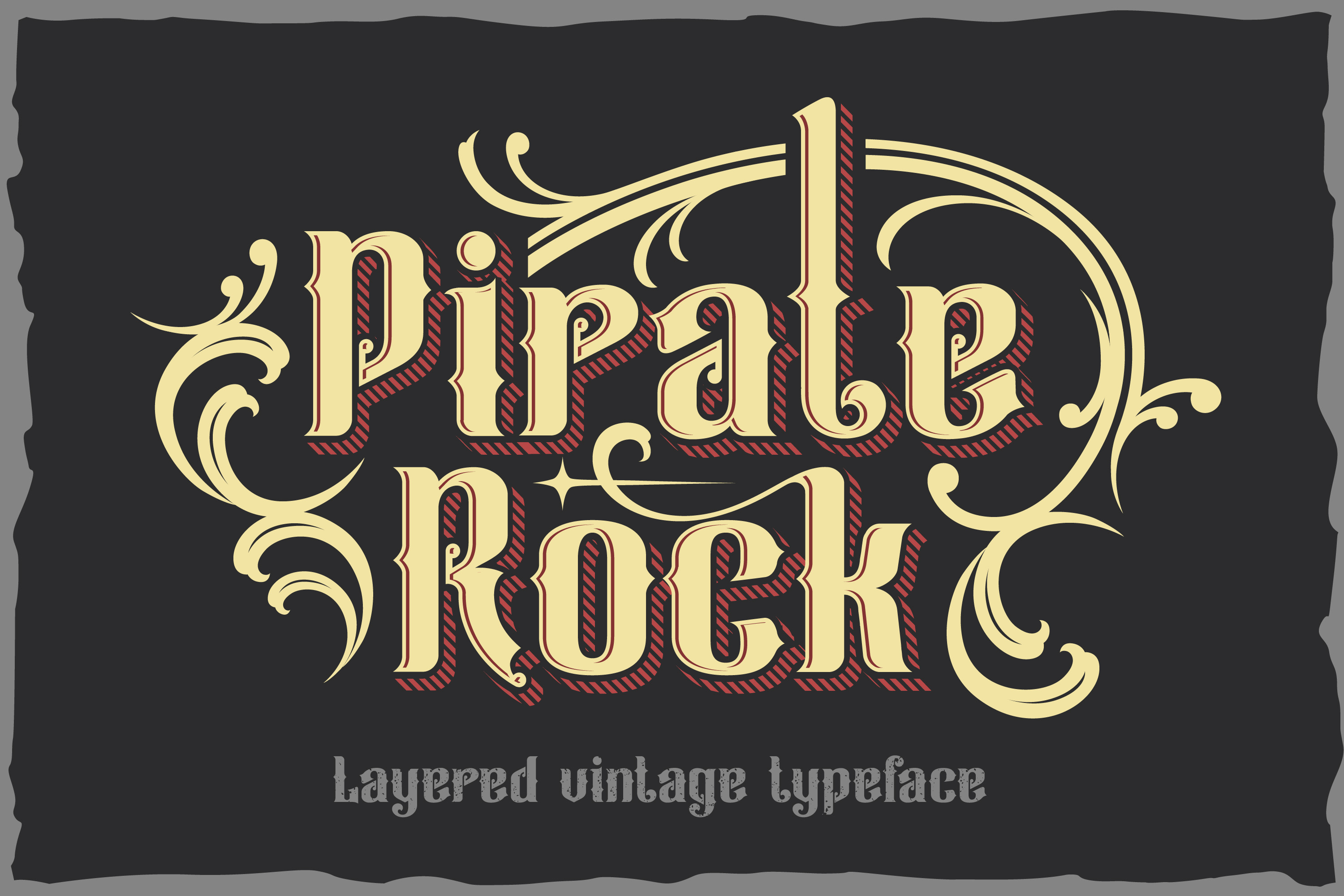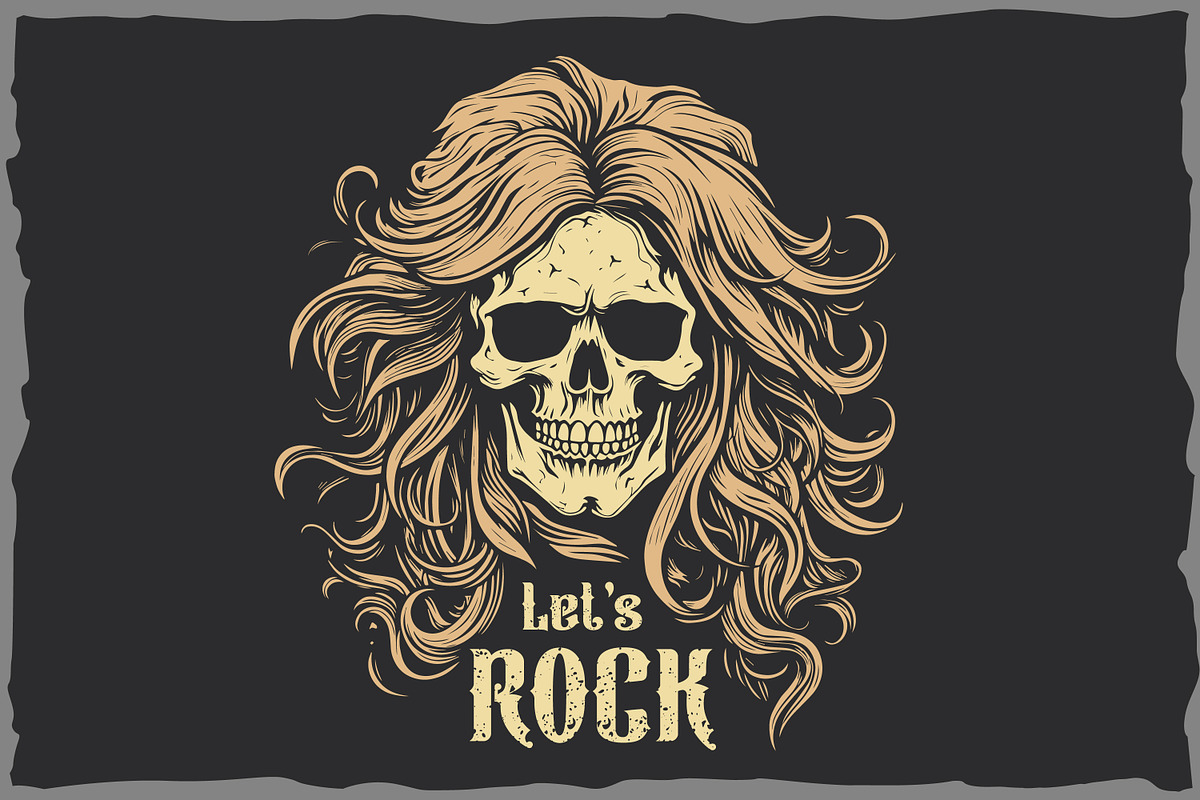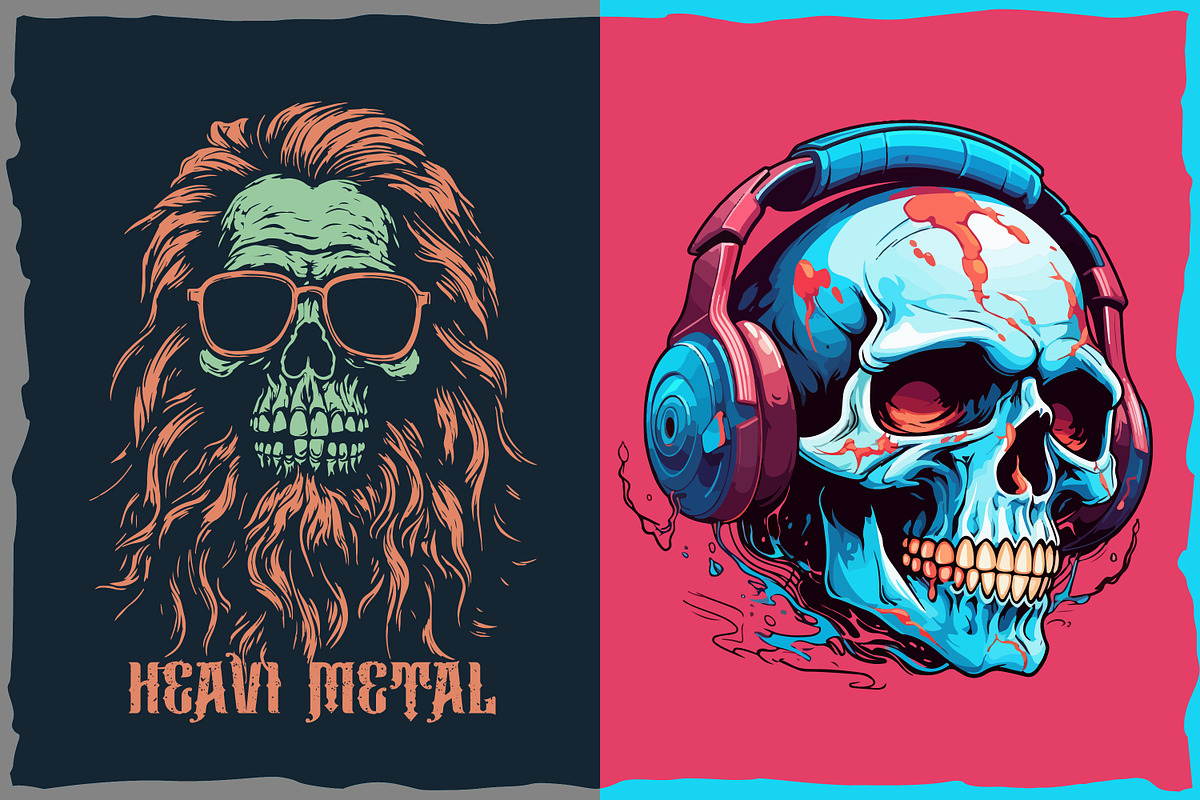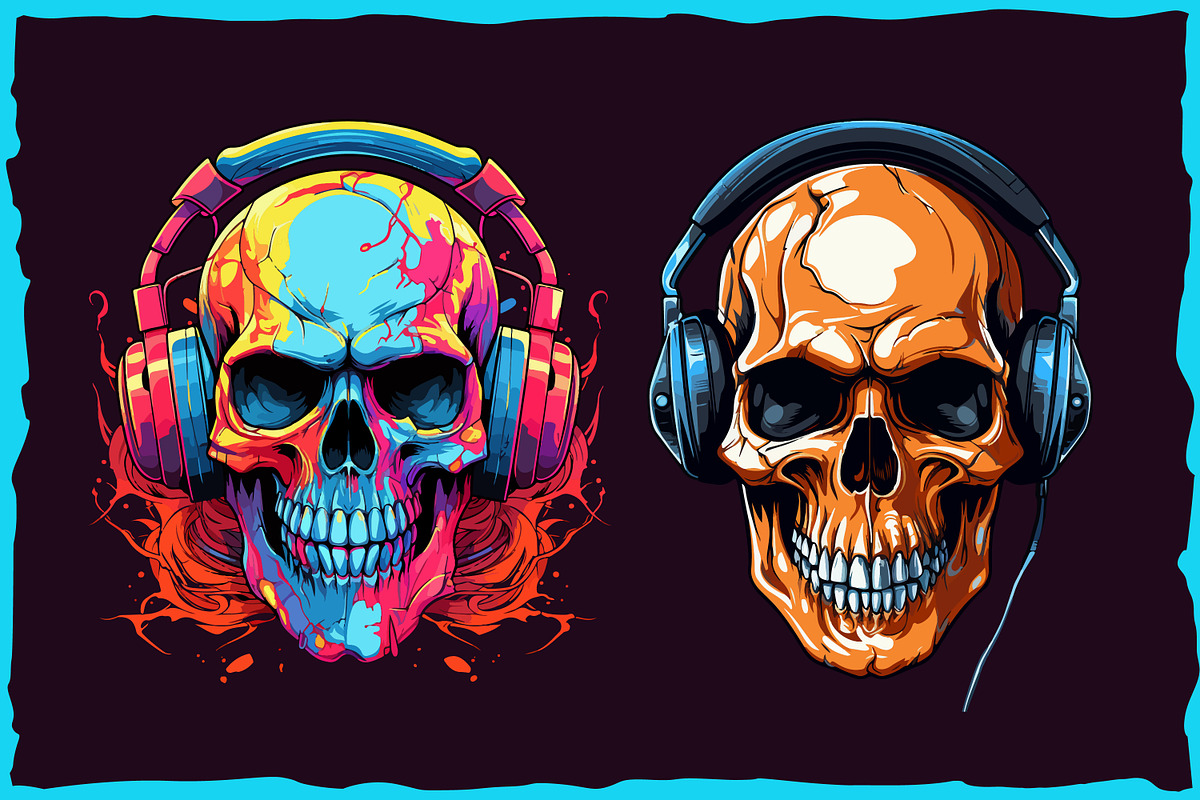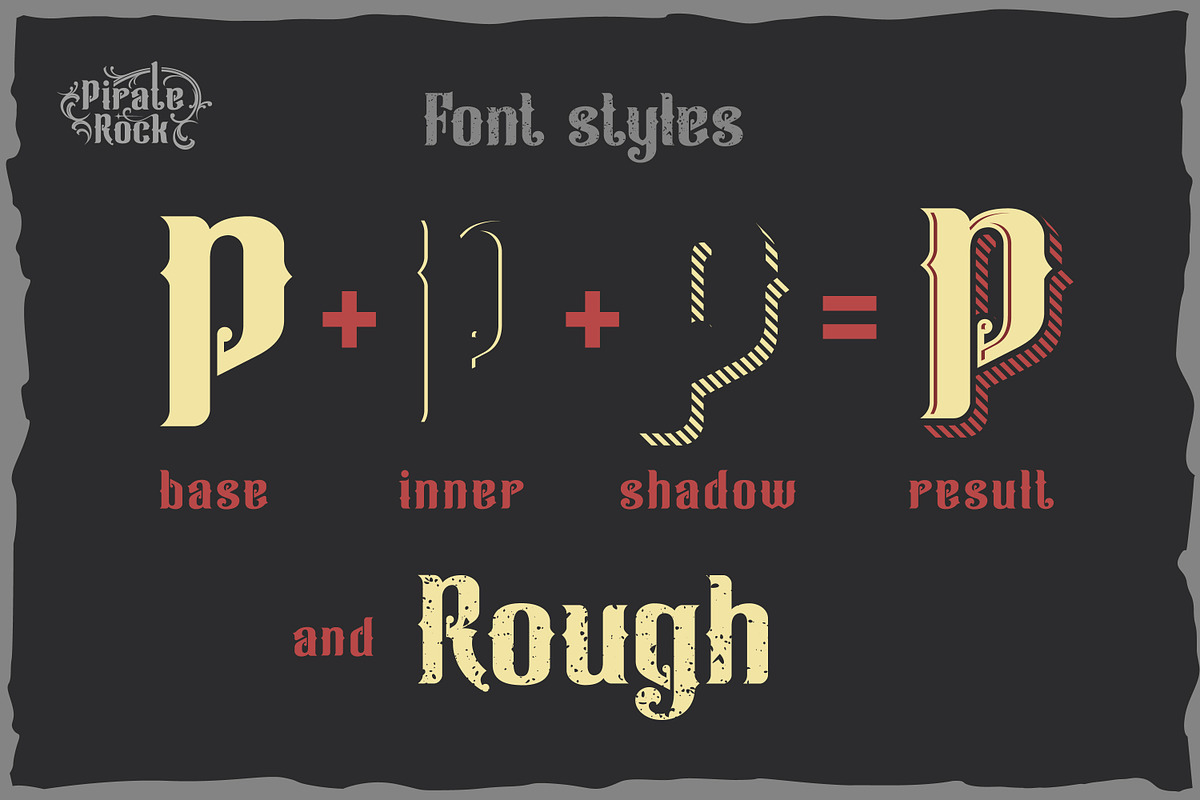
Pirate rock - vintage layered font
Pirate rock, vintage layered font. Contains 4 writing styles. Basic, inner shadow, shadow and rough. Well suited for use in the design of headlines, logos, illustrations and various products.
Contains 5 illustrations of skulls, suitable for prints on T-shirts and more.